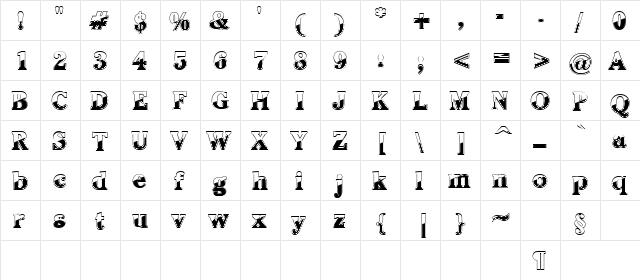
High Head Blues 1 Bold
Design Context for High Head Blues 1 Typeface
High Head Blues 1 takes a measured approach to typography — its balanced proportions and neutral character make it a reliable workhorse for both digital and print work. Its bold stroke weight gives it real presence on the page.